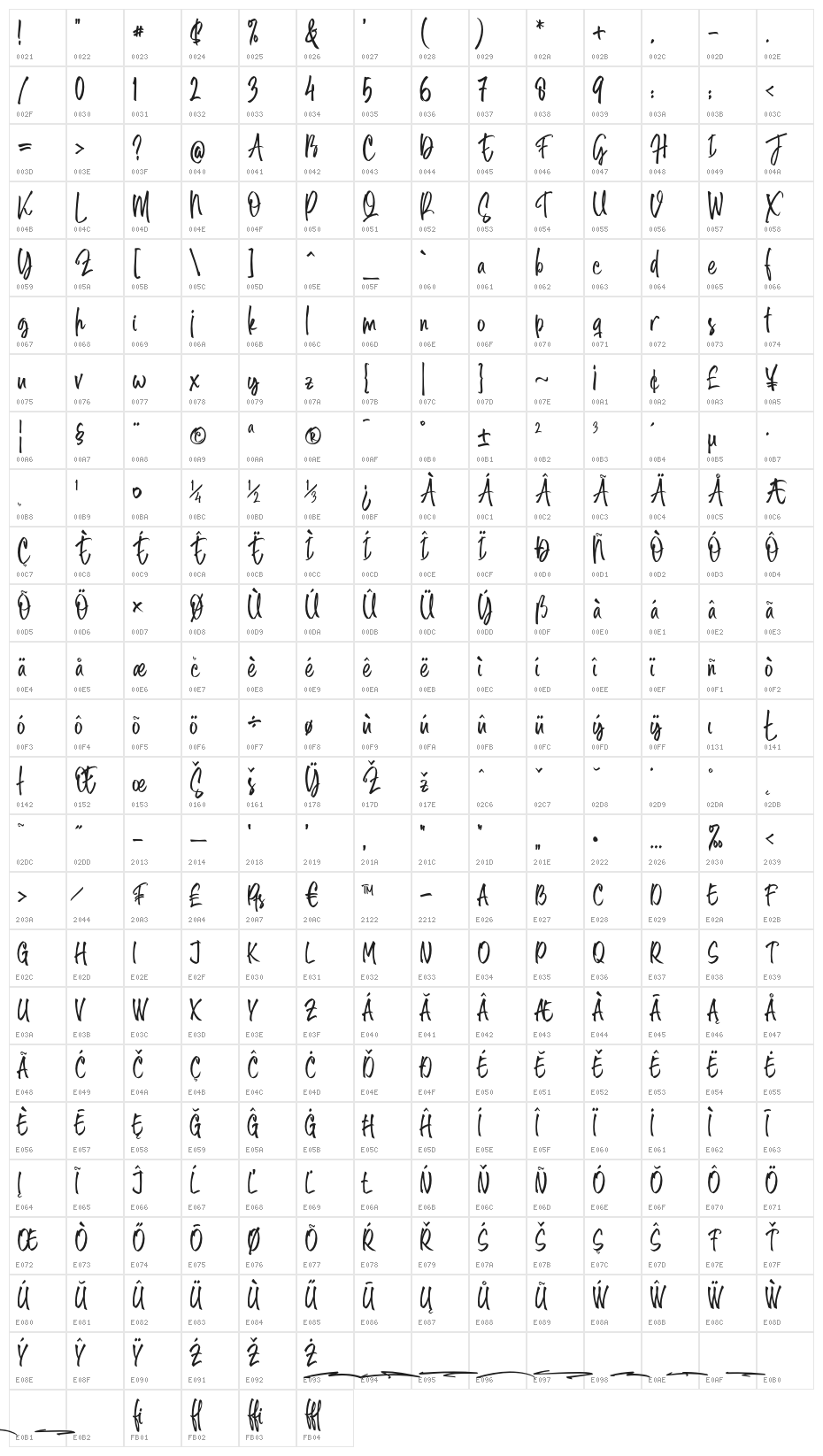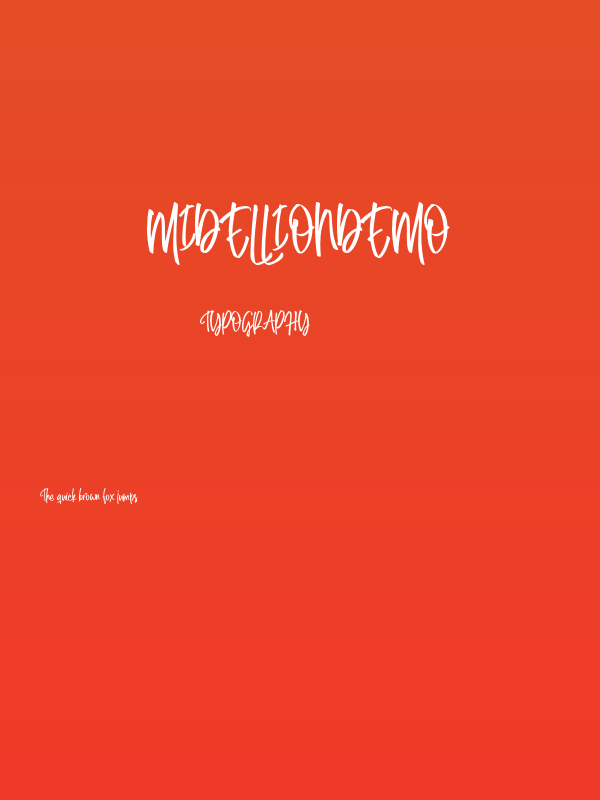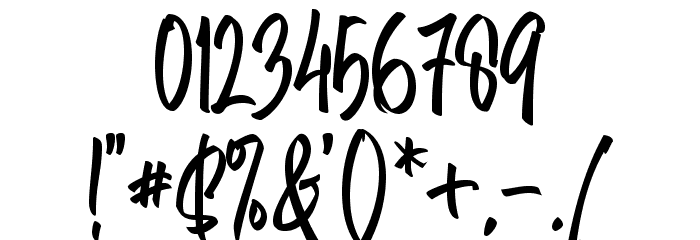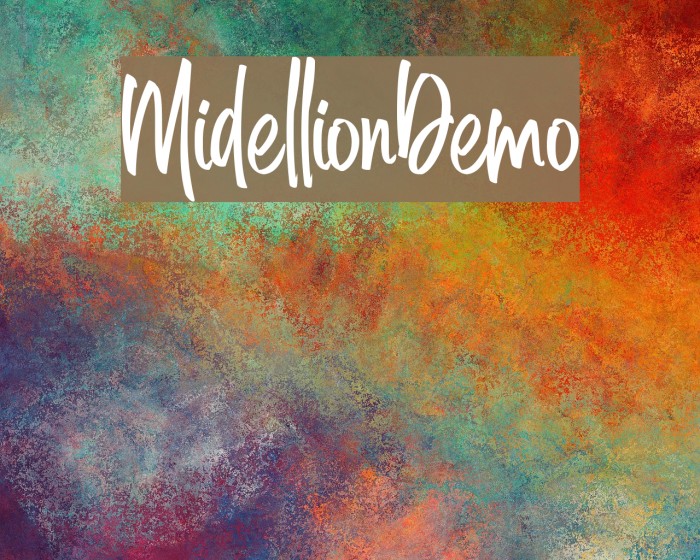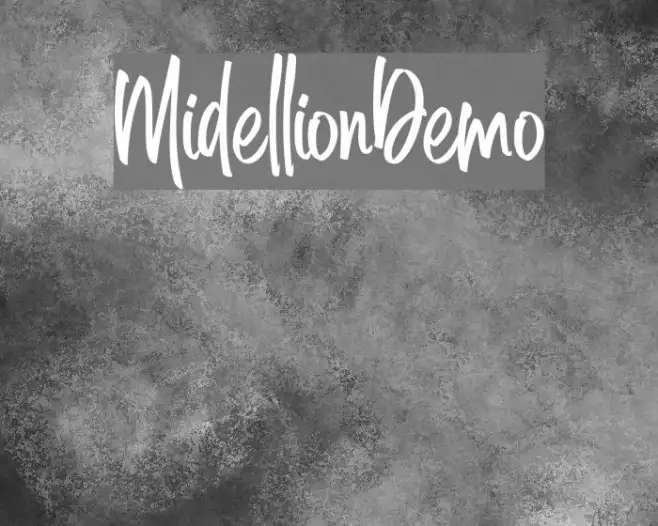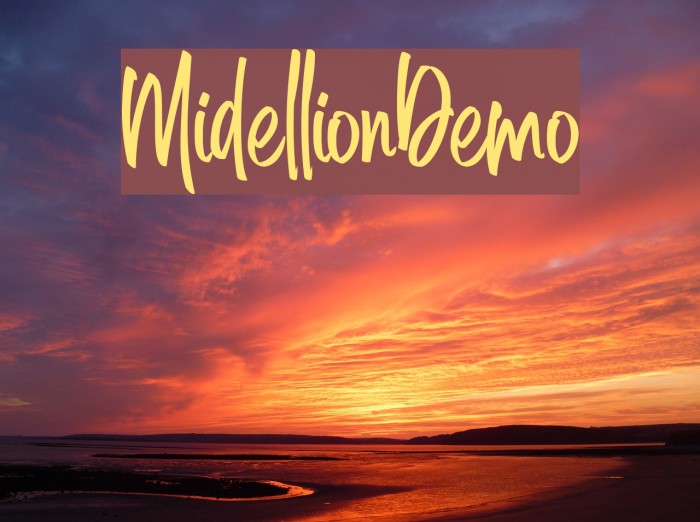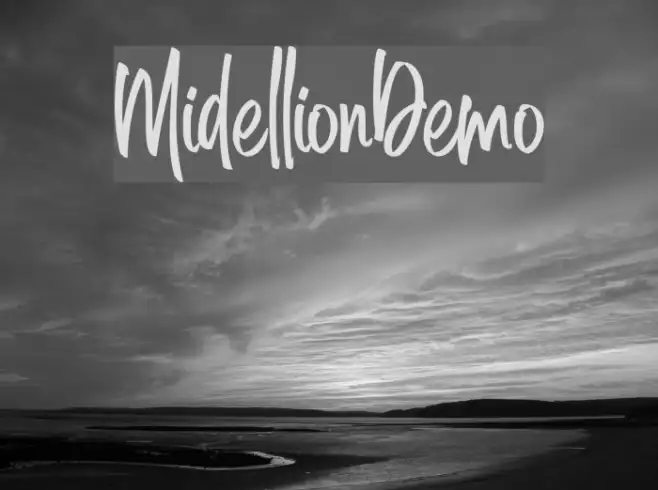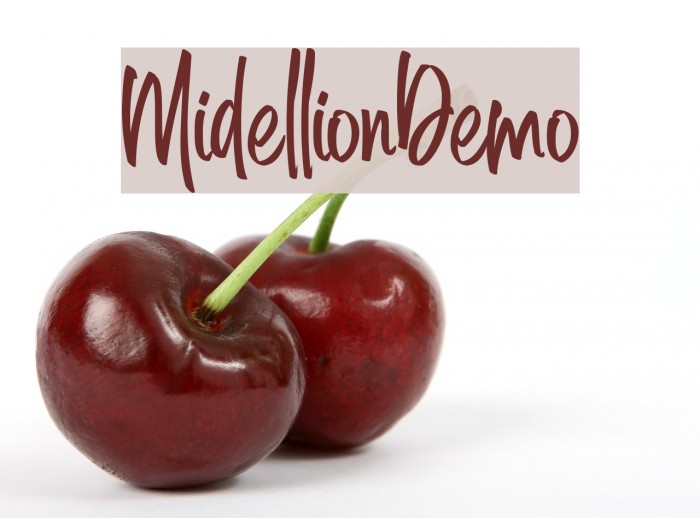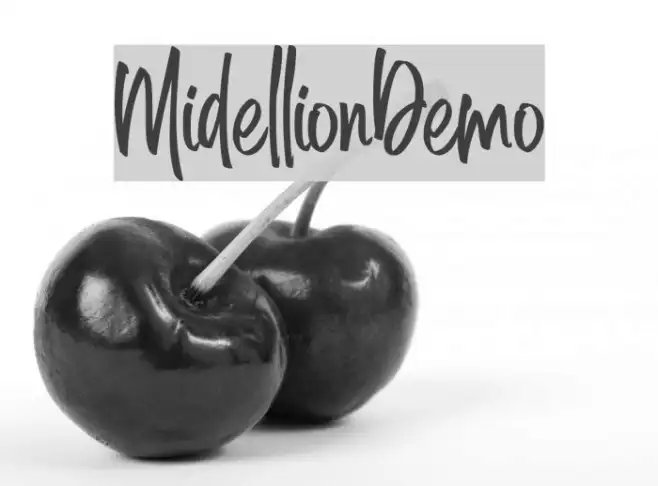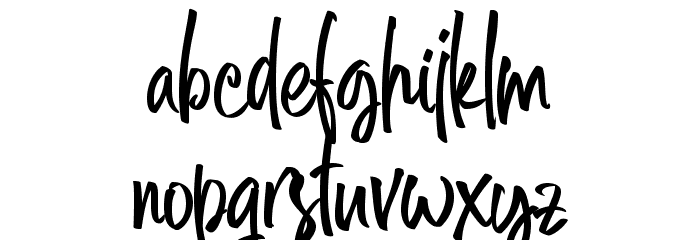
MidellionDemo Font
MidellionDemo Description
This font features a dynamic and energetic handwritten style, characterized by its bold and flowing strokes. The letters are crafted with a sense of movement, giving them a lively and informal appearance. The uppercase and lowercase letters maintain a consistent style, with the uppercase being slightly more exaggerated in height and flourish. The numerals and special characters follow the same energetic design, making the font versatile for various uses. The overall look is modern and expressive, suitable for projects that require a personal touch or a creative flair.
| Proposed Projects | Ideal for branding, invitations, posters, and social media graphics where a personal and creative touch is desired. |